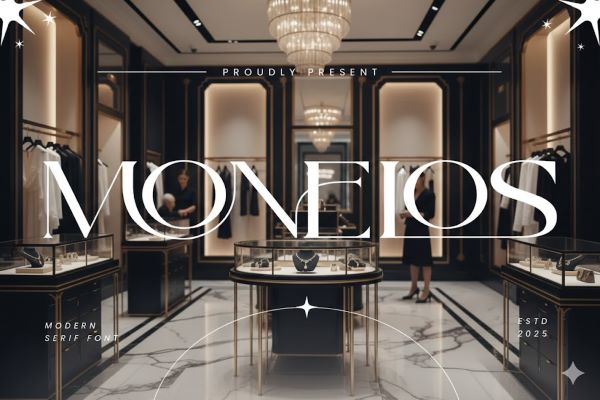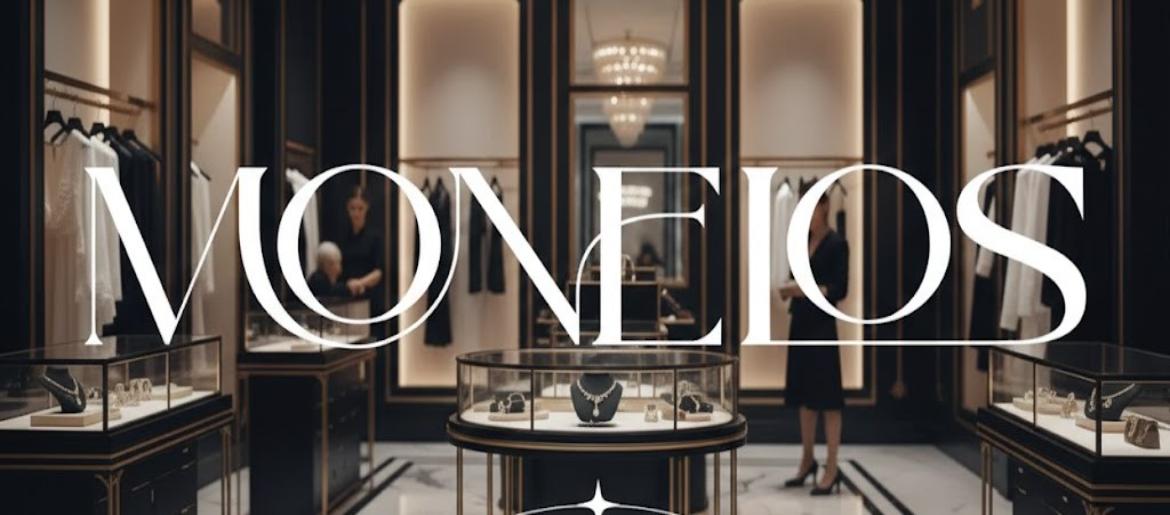
Monelos Font
Monelos Font is a modern serif typeface defined by elegant curves and refined line details. Its sophisticated structure blends contemporary clarity with classic charm, making it ideal for luxury branding, editorials, logos, headlines, and high-end design projects that require a graceful, polished, and timeless visual identity.
➤ Font Name: Monelos
➤ Designer: Toni Studio
➤ Style: Serif